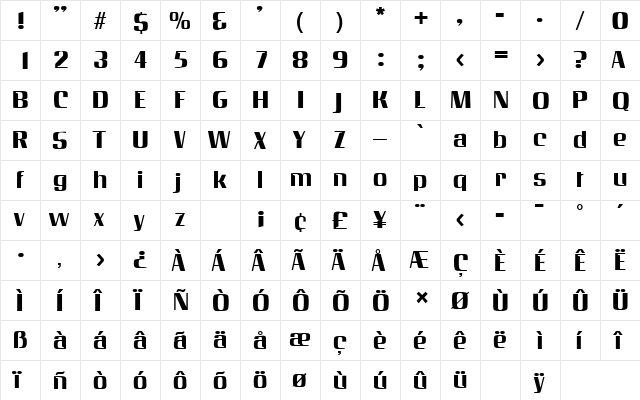
Invers SF Regular Font Preview
Invers SF Regular
Design Context for Invers SF Typeface
Invers SF offers clean, dependable letterforms without strong stylistic allegiance, making it a practical choice for designers who need flexibility.